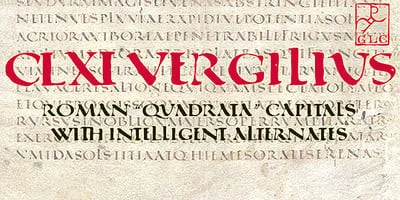
161 Vergilius Font
161 Vergilius Font is ideal for classical literature publications, Latin studies programs, ancient Roman history museums, prestigious university materials, epic poetry collections, classical education institutions, Roman Catholic church documents, scholarly research publications, classical antiquity exhibitions, traditional manuscript reproductions, academic conference presentations, and distinguished literary journals.
This font is exciting because it honors the immortal legacy of Publius Vergilius Maro (Virgil), Rome's greatest poet and author of the Aeneid, featuring majestically classical letterforms that carry the same epic grandeur and literary immortality that has inspired readers for over two millennia since Virgil's masterpieces first echoed through the marble halls of ancient Rome. The dignified character design embodies both the heroic scope of epic poetry and the refined elegance of classical Latin literature, creating typography that feels worthy of the greatest works in Western literary tradition. Each letter resonates with the kind of eternal significance and cultural authority that transforms ordinary text into declarations that echo through the corridors of history and scholarly achievement.
The 161 Vergilius Font family includes regular and bold weights with complete character sets featuring classical Roman numerals, scholarly punctuation marks, and decorative elements inspired by ancient Roman inscriptions, epic poetry manuscripts, and classical literary traditions. Advanced versions may offer additional stylistic variants with enhanced classical effects, alternate characters that reflect ancient Roman lettering practices, and ornamental elements that celebrate the rich heritage of Latin literature and classical education.
Whether you're developing classical academic materials, creating literary publications, or designing educational content about ancient Rome, 161 Vergilius Font provides the epic dignity and scholarly authority your project needs to honor the greatest traditions of classical literature and Roman cultural achievement. This typeface transforms ordinary text into literary monuments that carry the weight of epic poetry and the authority of classical scholarship. The font's classical character makes it essential for institutions and publications that celebrate Latin literature and Roman heritage. Classical scholars and literary enthusiasts will appreciate how this font brings authentic Virgilian grandeur to their work with its genuinely epic and classically authoritative character that honors the immortal poet's magnificent legacy.